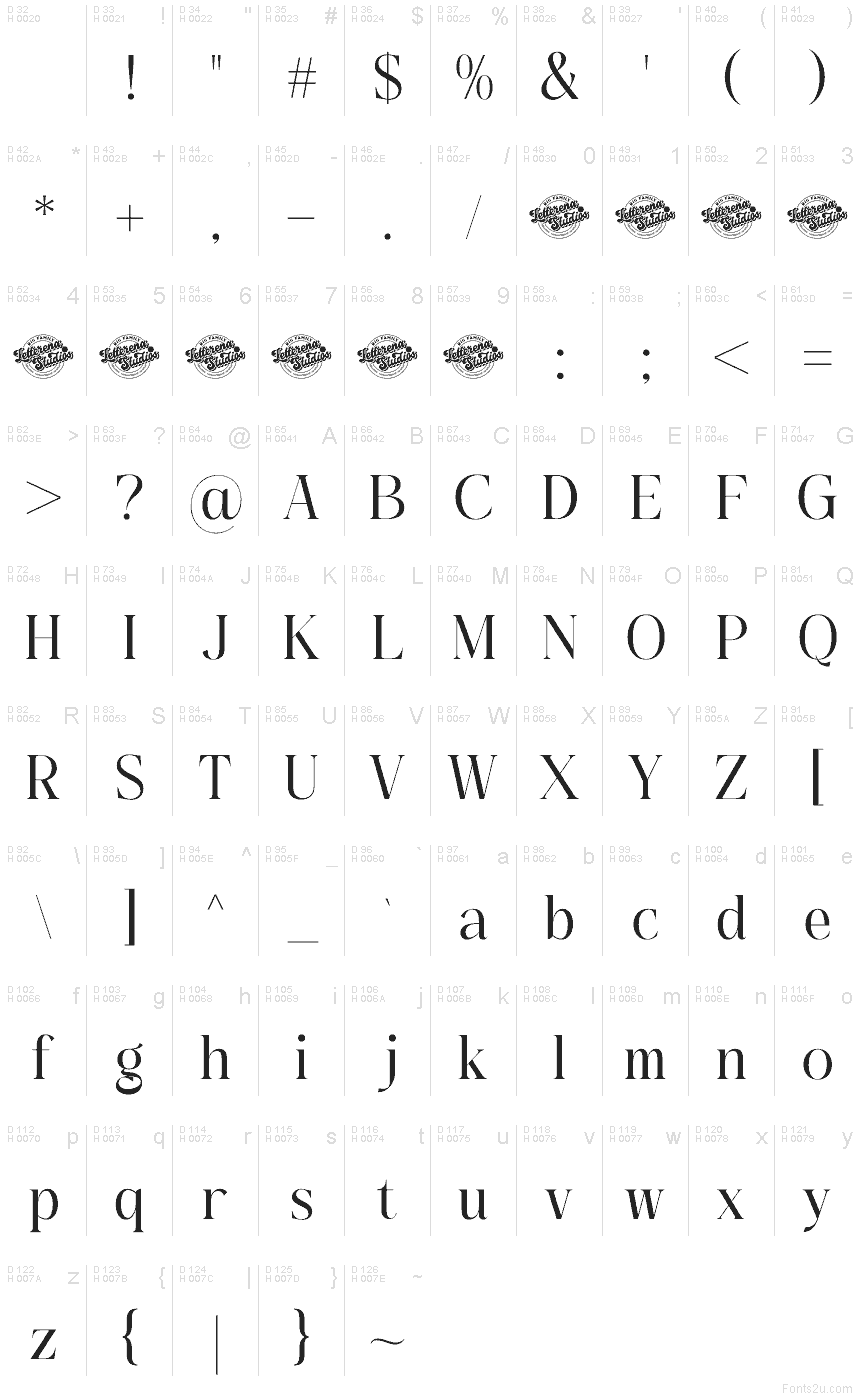
Asgaber DEMO VERSION
Asgaber font by Storytype Studio is an elegant free serif font with sophisticated serif characters that are refined to be modern and beautiful. The letters come in a minimalist design that tips on the classic style with their sublime widths and shape balance.